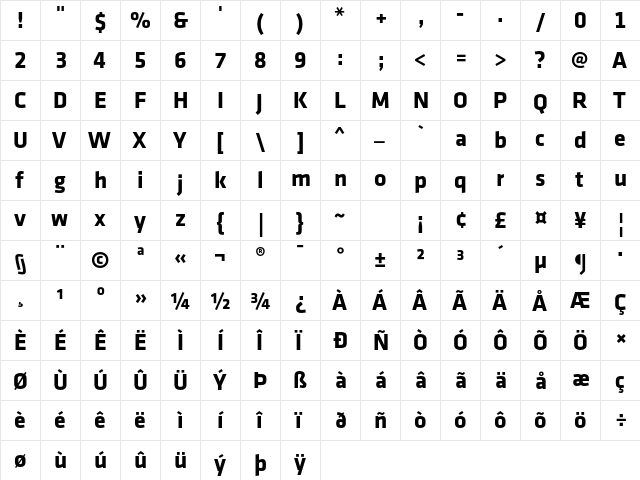
Klavika Bold Bold TF
Design Context for Klavika Bold Typeface
Klavika Bold is a composed and adaptable typeface that performs quietly and consistently across a wide range of design contexts. The heavy weight commands attention and anchors typographic hierarchies.
Pro Tip: Pair Klavika Bold with a font of contrasting weight or personality to build a more expressive typographic hierarchy.